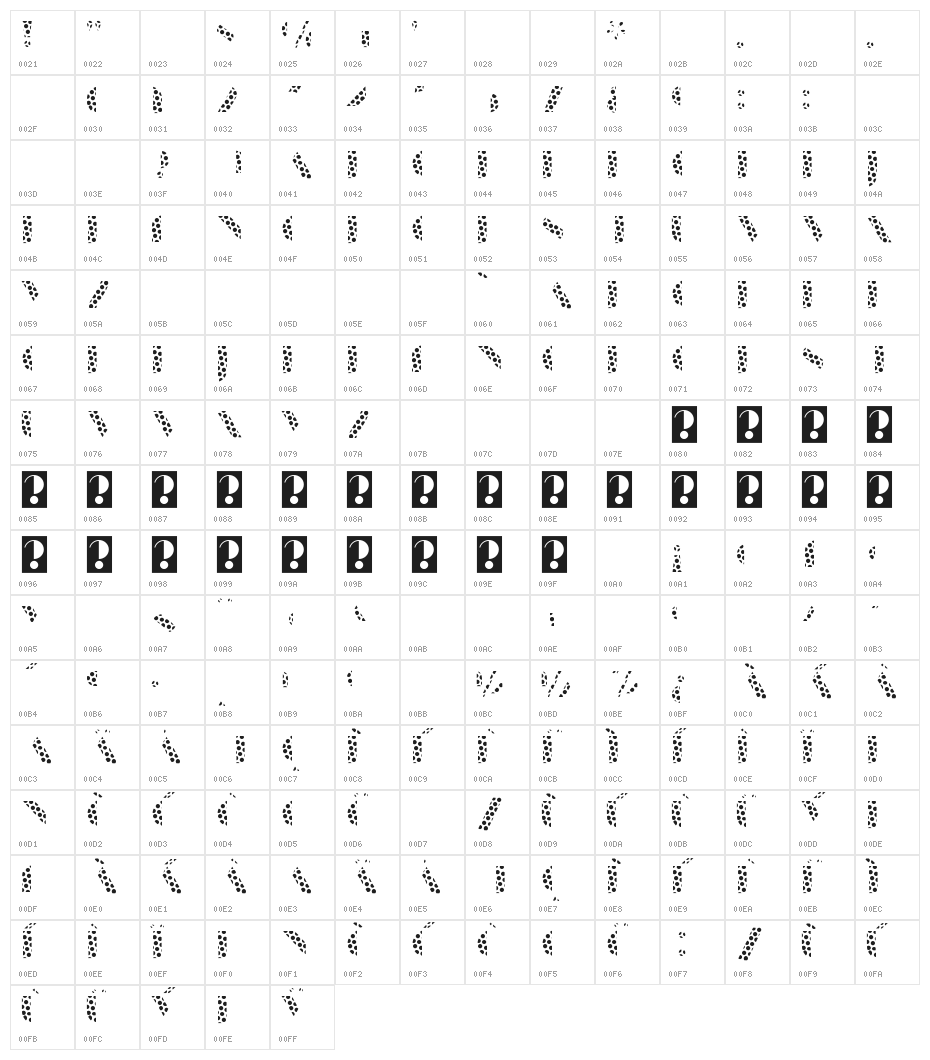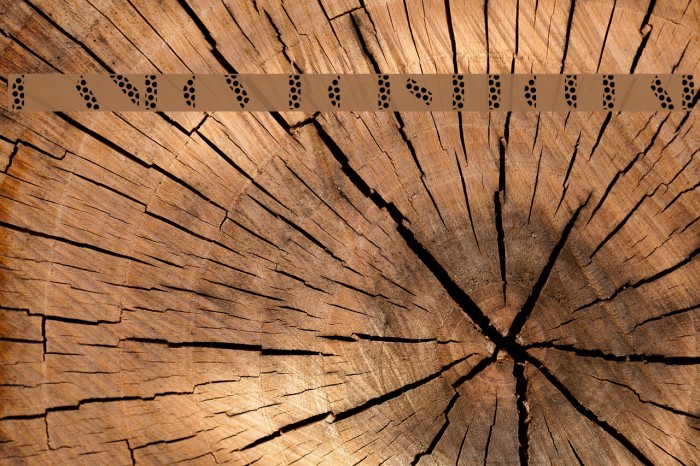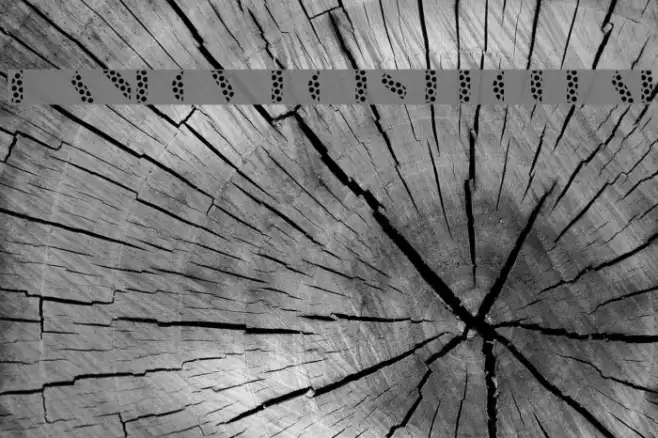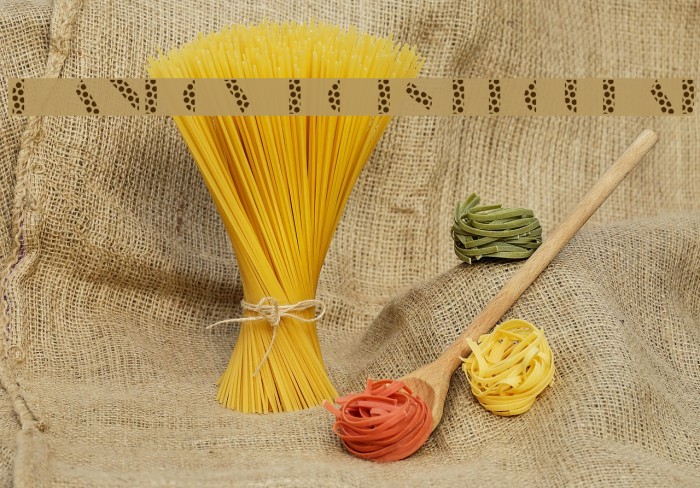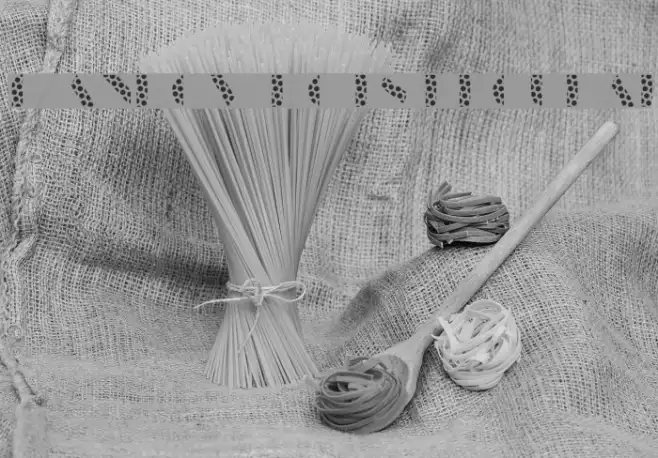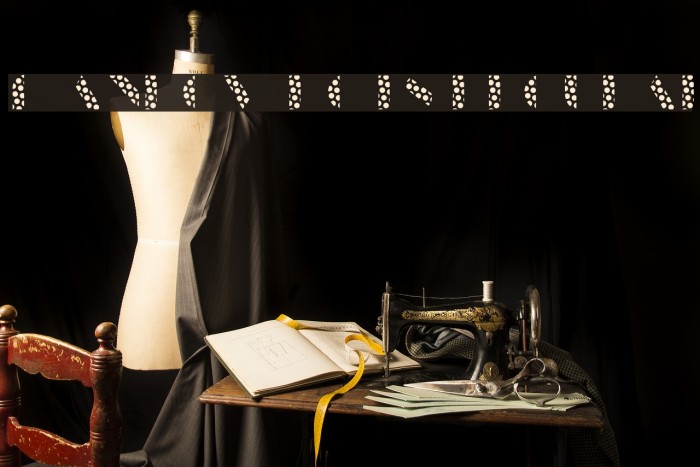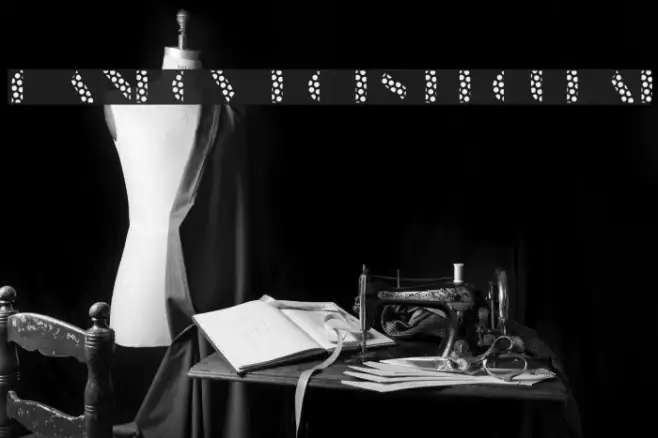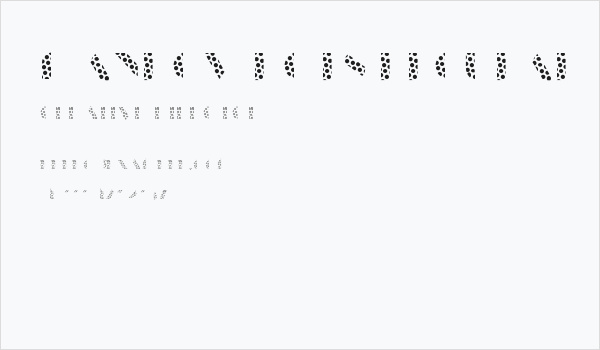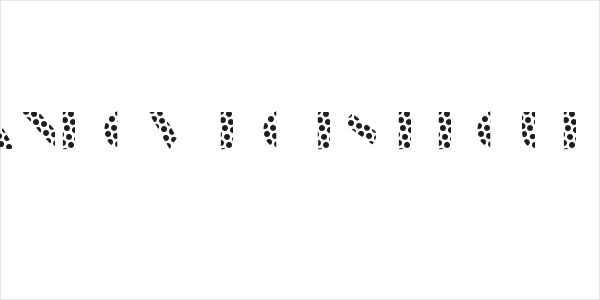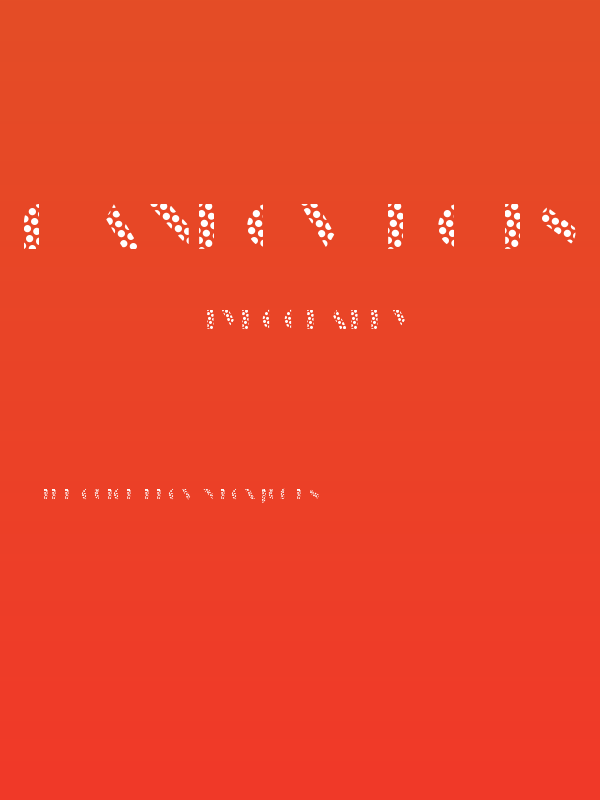
ManbowDots-Regular Font
This font features a unique dotted pattern that forms each character, creating a playful and eye-catching design. The dots are evenly spaced, giving the font a consistent and uniform appearance. The characters are constructed with a modern geometric style, making them stand out with a bold presence. This font is ideal for projects that require a fun and engaging visual element, such as children's books, playful branding, or creative posters. Its distinctive style ensures that it captures attention while maintaining readability.
| Proposed Projects | Ideal for children's books, playful branding, creative posters, and any project needing a fun visual element. |